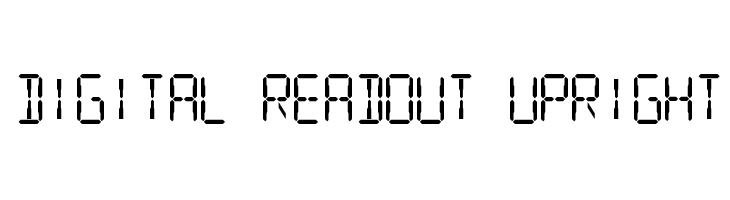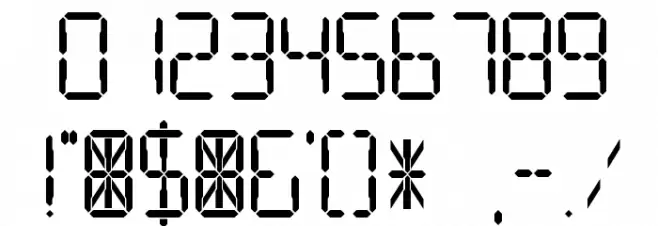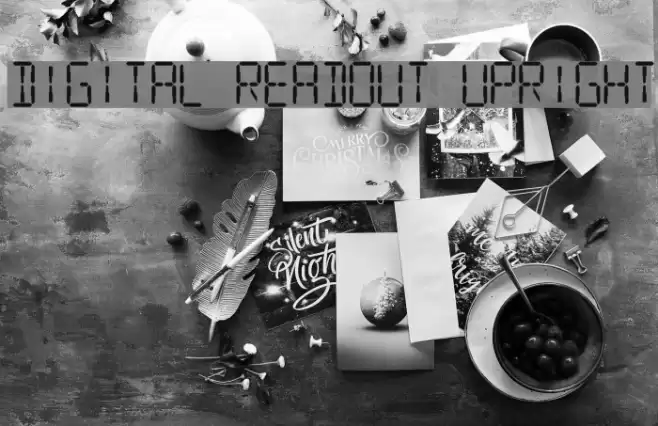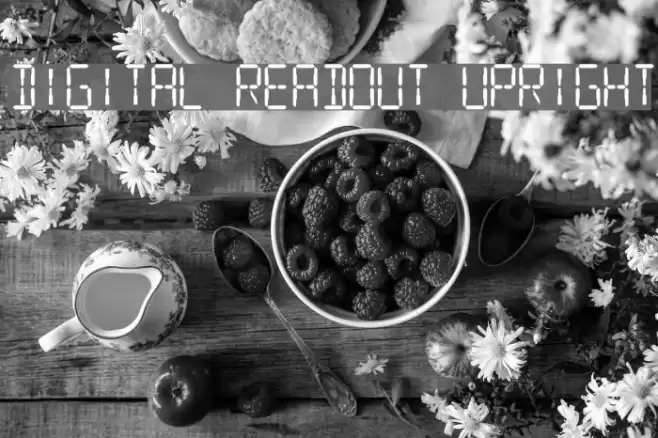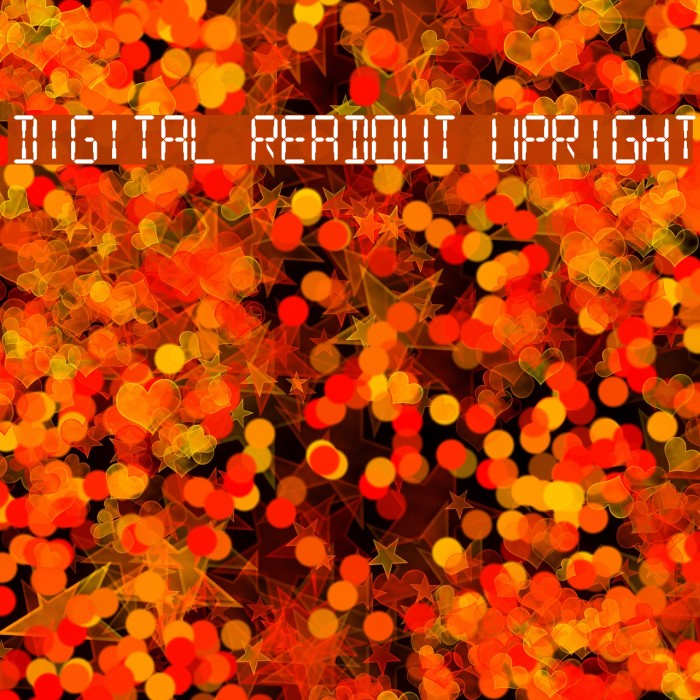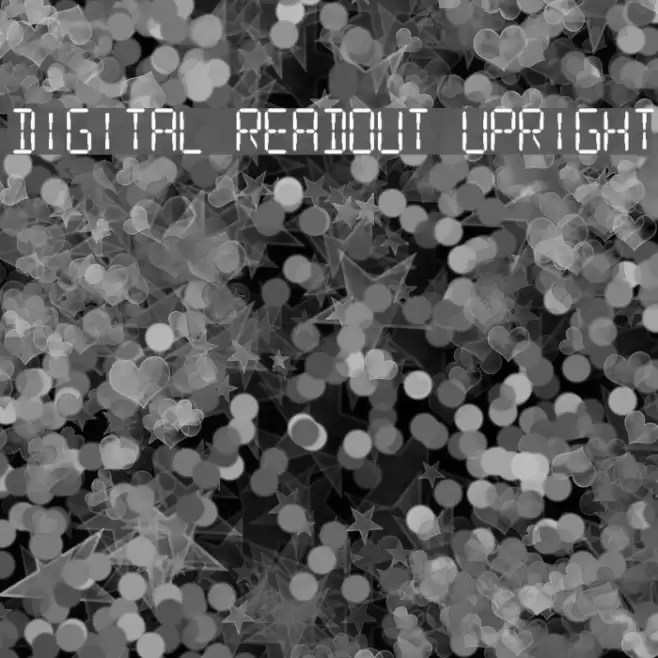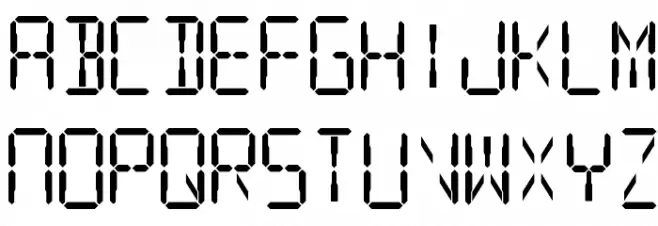
Digital Readout Upright Font
| Anwendungsfall | Headlines, Logos, Digital displays |
| Vorgeschlagene Projekte | Ideal for digital interfaces, tech-themed designs, retro displays, and any project requiring a futuristic or mechanical look. |